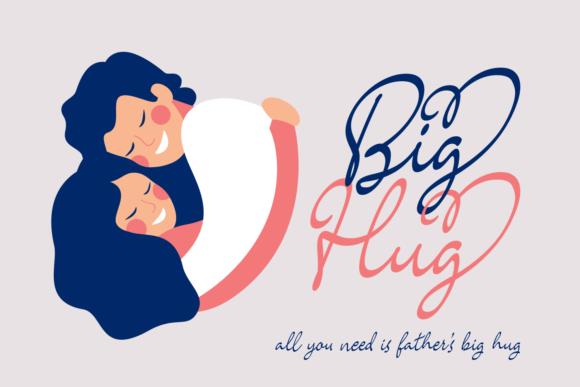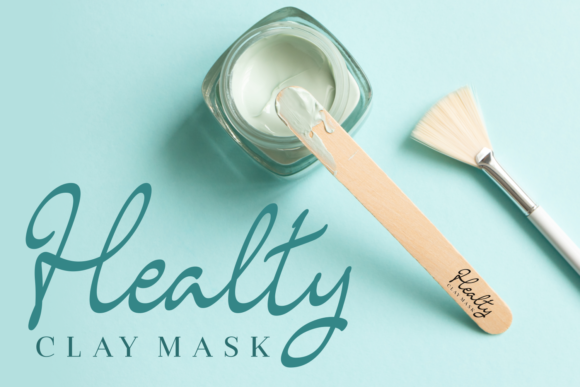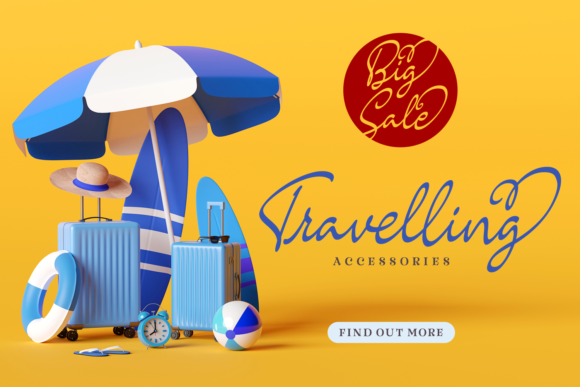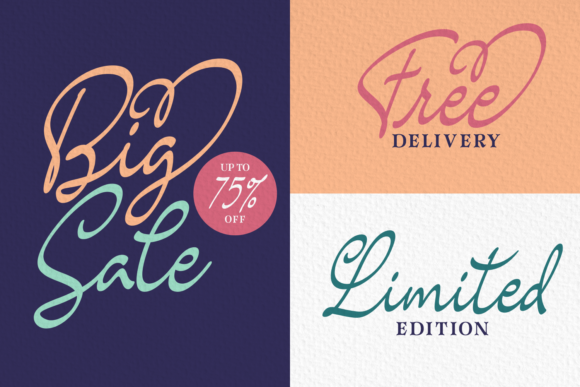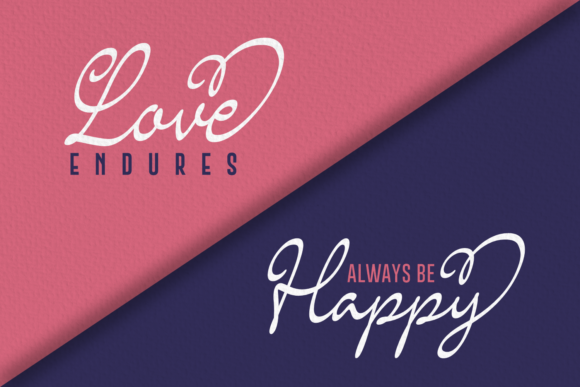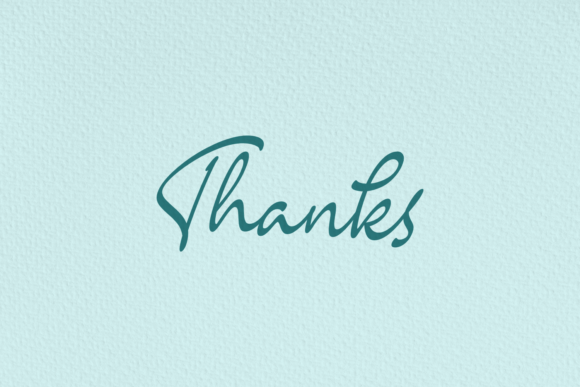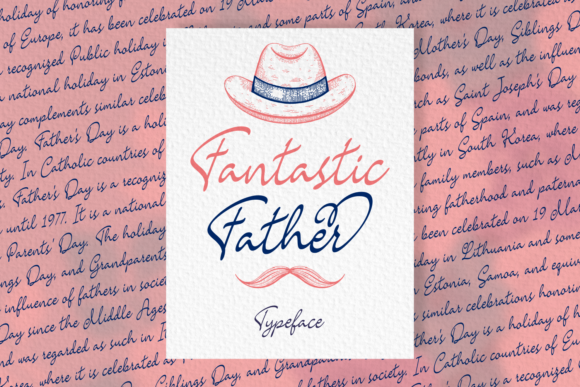
Fantastic Father Font: Elevate Your Designs with Sophistication and Elegance
Are you looking for a font that exudes luxury, refinement, and sophistication? Look no further than the Fantastic Father Font. This chic script font is designed to add a touch of elegance to any design project, making it perfect for designers and crafters seeking to create stunning visual content.
What Makes Fantastic Father Font Stand Out?
Fantastic Father Font is a beautifully crafted script font that boasts a unique and refined aesthetic. Its elegant lines, flowing curves, and precise lettering make it an excellent choice for a wide range of design applications, from luxury branding and advertising to wedding invitations and digital marketing materials.
Fantastic Father Font is an incredibly versatile font that can be used in a multitude of design projects, including:
• Luxury branding: Create high-end logos, business cards, and letterheads that exude sophistication and refinement.
• Wedding invitations: Add a touch of elegance to your wedding stationery, including invitations, save-the-dates, and thank-you cards.
• Digital marketing: Elevate your social media graphics, email headers, and website content with this beautiful script font.
• Packaging design: Use Fantastic Father Font to create stunning labels, packaging, and product designs that stand out on store shelves.
Tips for Using Fantastic Father Font
To get the most out of Fantastic Father Font, here are a few tips to keep in mind:
• Pair it with contrasting fonts: Combine Fantastic Father Font with a clean, sans-serif font to create visual interest and hierarchy in your designs.
• Experiment with swashes: Take advantage of the font’s extensive swash collection to add flair and personality to your designs.
• Use it in large sizes: Fantastic Father Font is perfect for headlines, titles, and large display text, where its elegant lines and curves can shine.
Why Designers and Crafters Love Fantastic Father Font
Designers and crafters love Fantastic Father Font for its unique combination of style, versatility, and ease of use. Here are just a few reasons why:
• Sophisticated aesthetic: Fantastic Father Font adds a touch of luxury and refinement to any design project.
• High-quality design: The font is crafted with precision and attention to detail, ensuring a high-quality design that looks great in any context.
In conclusion, Fantastic Father Font is a fantastic addition to any designer’s or crafter’s toolkit. Its elegant script style, PUA encoding, and versatility make it perfect for a wide range of design projects. Whether you’re looking to create luxury branding, wedding invitations, or digital marketing materials, Fantastic Father Font is sure to elevate your designs and leave a lasting impression.